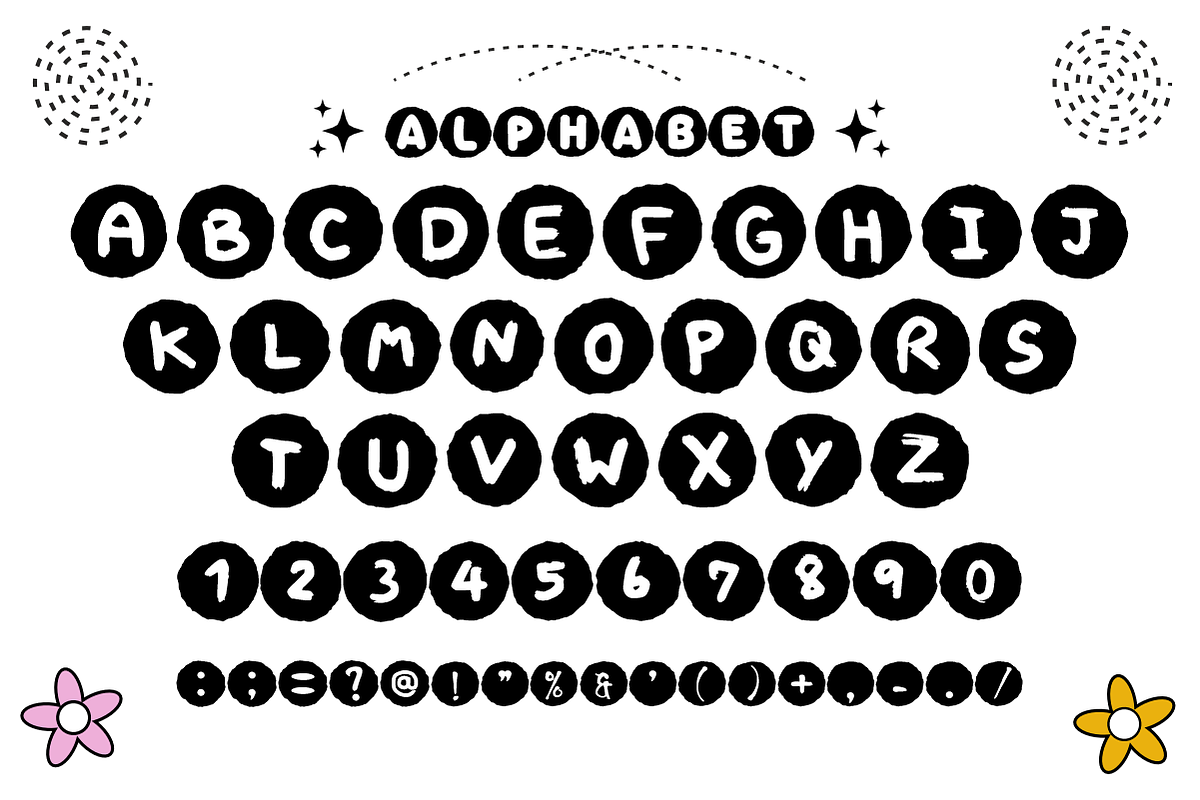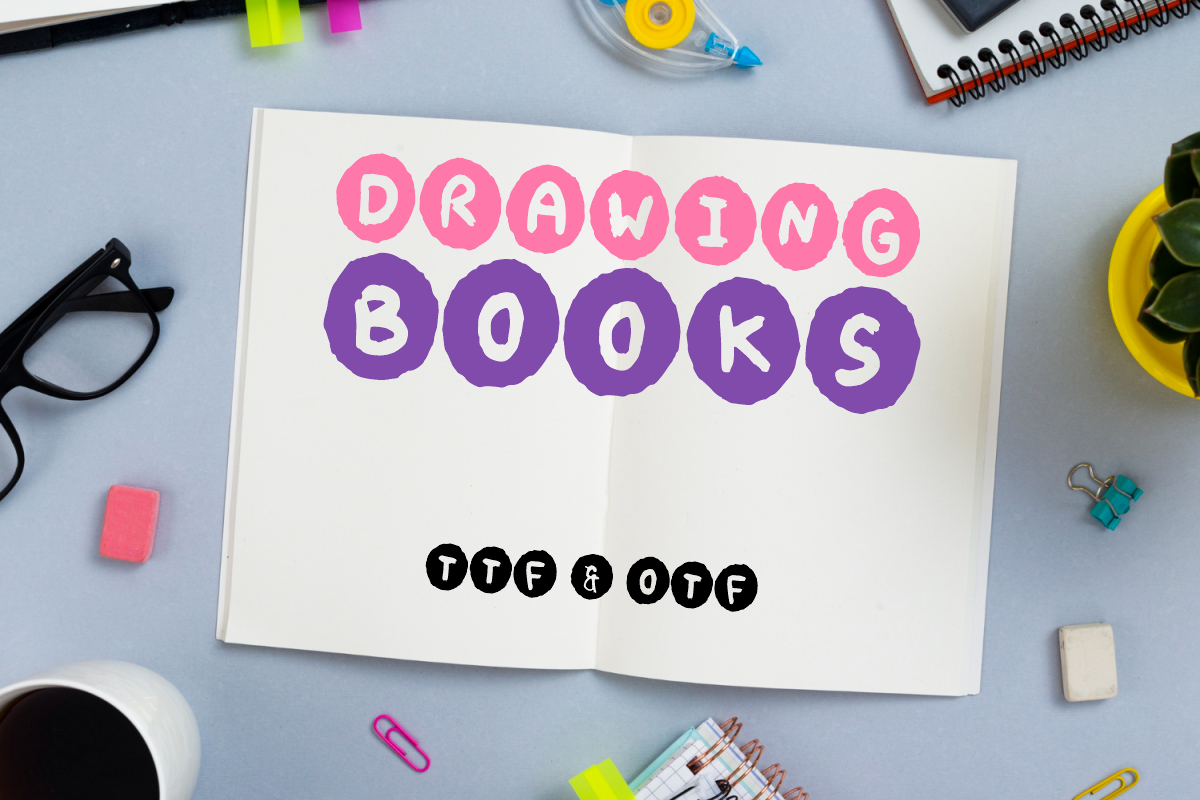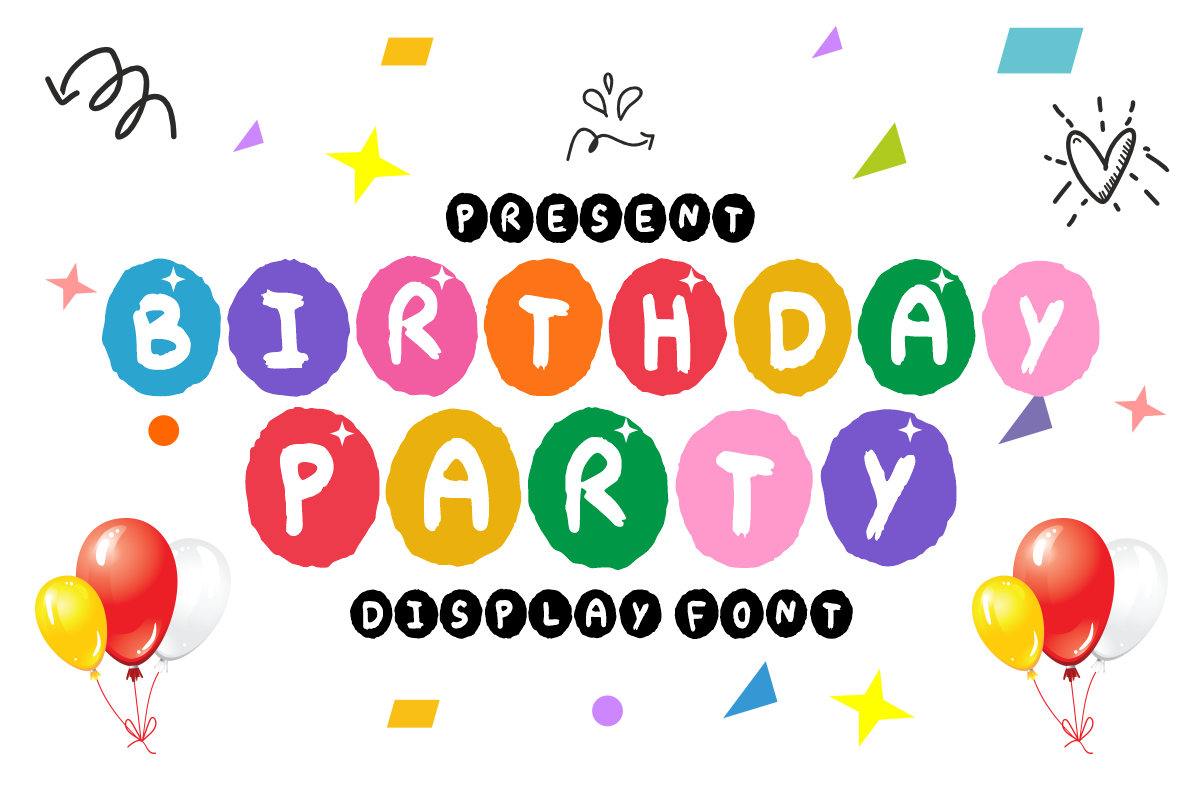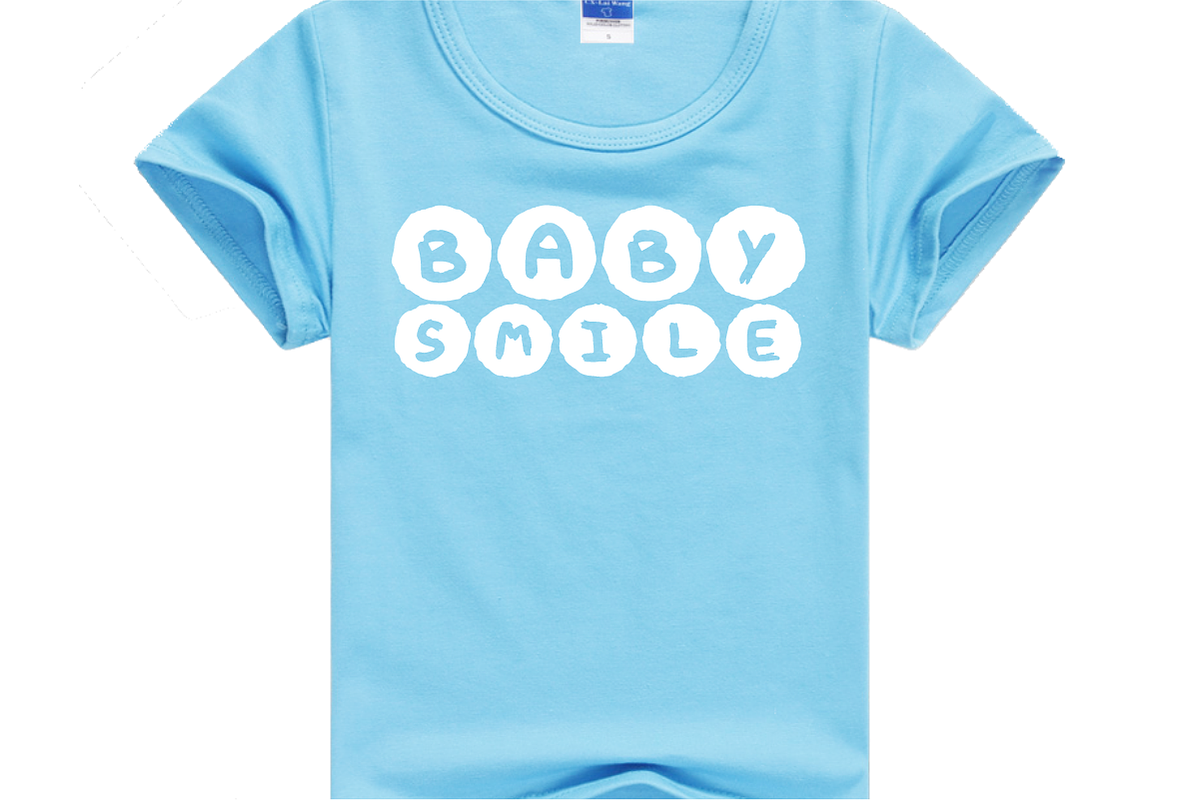
Birthday Party - Cute Kids Font
Birthday Party is a cheerful, festive display font featuring cute hand-drawn letters set inside playful circular frames with subtle sparkle accents. Brimming with joy and celebration energy, this bubbly cartoon font is designed to give your party invitations, custom stickers, and kids' crafts an instant happy pop. Every character features clean vector paths, ensuring a flawless high-resolution print and smooth, effortless cutting on Cricut and Silhouette machines.